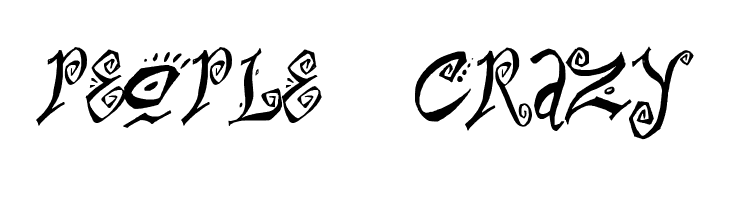
Hello Dear Demo Italic Font
- Font: Hello Dear Demo Italic
( Fonts by Peter Stanton )
A whimsical and decorative font with playful embellishments and high contrast strokes.